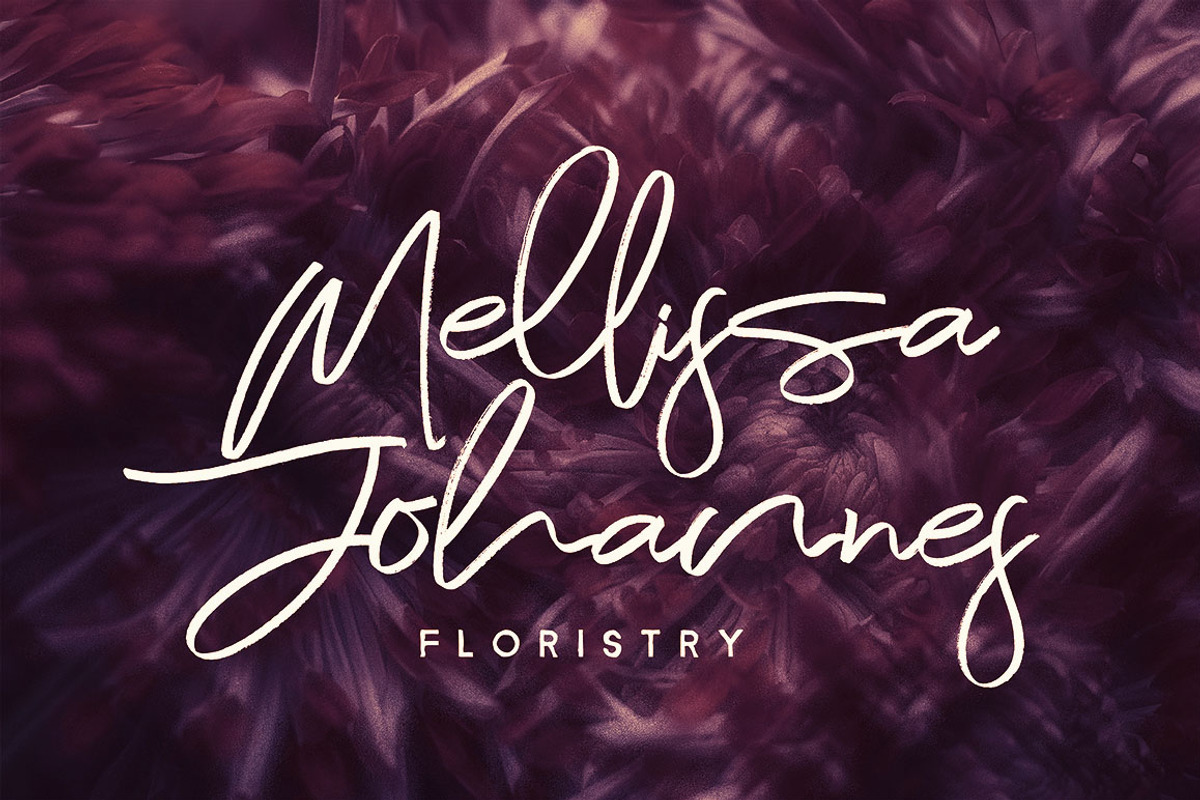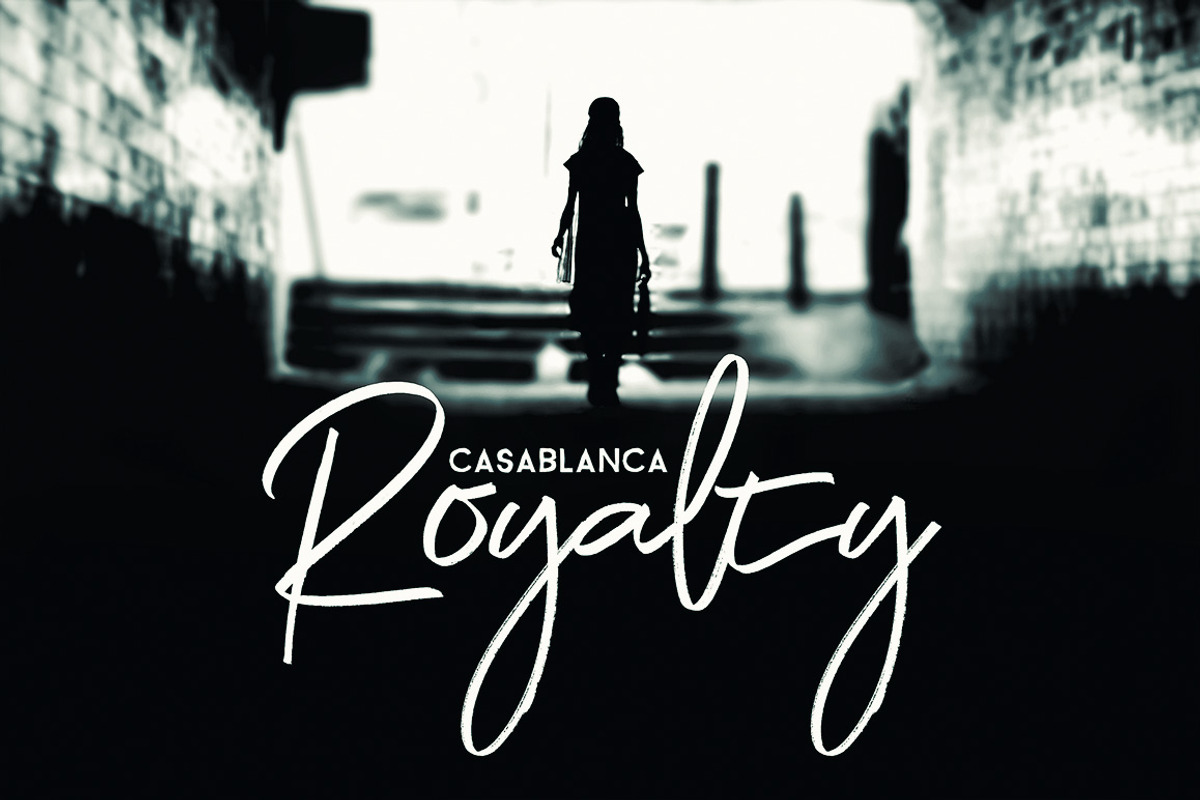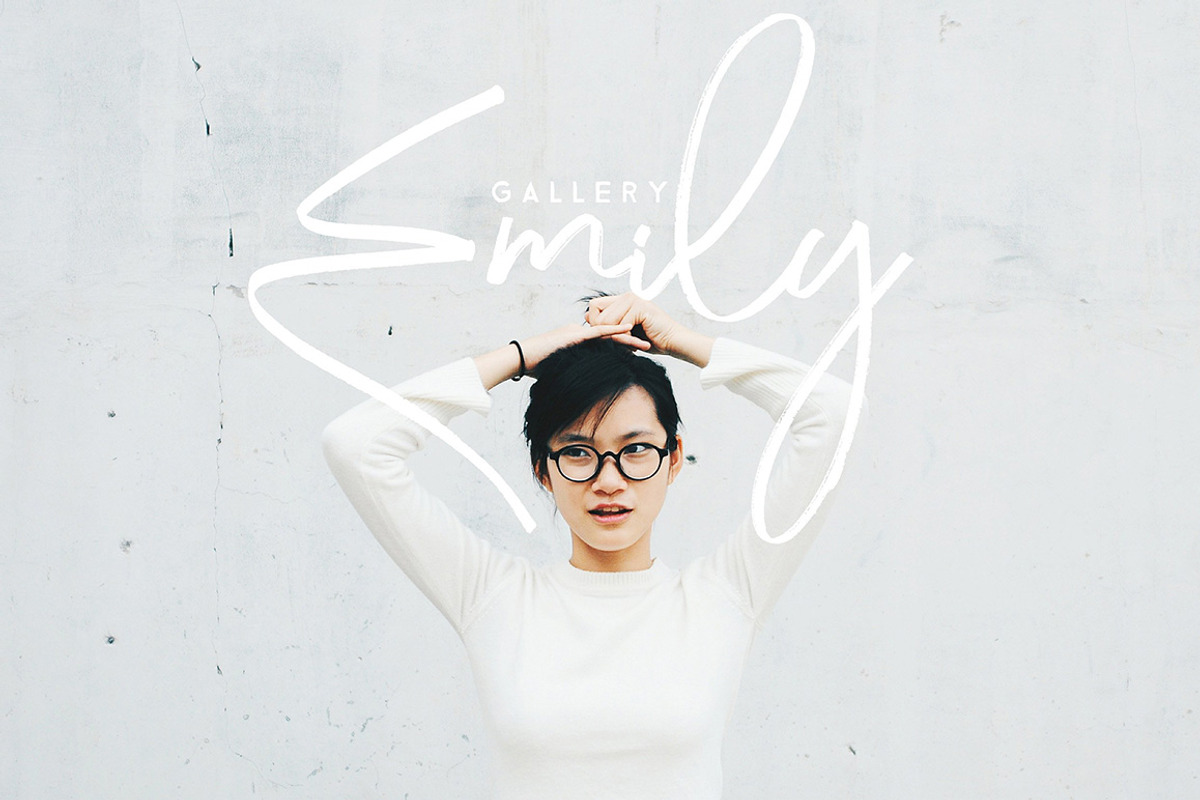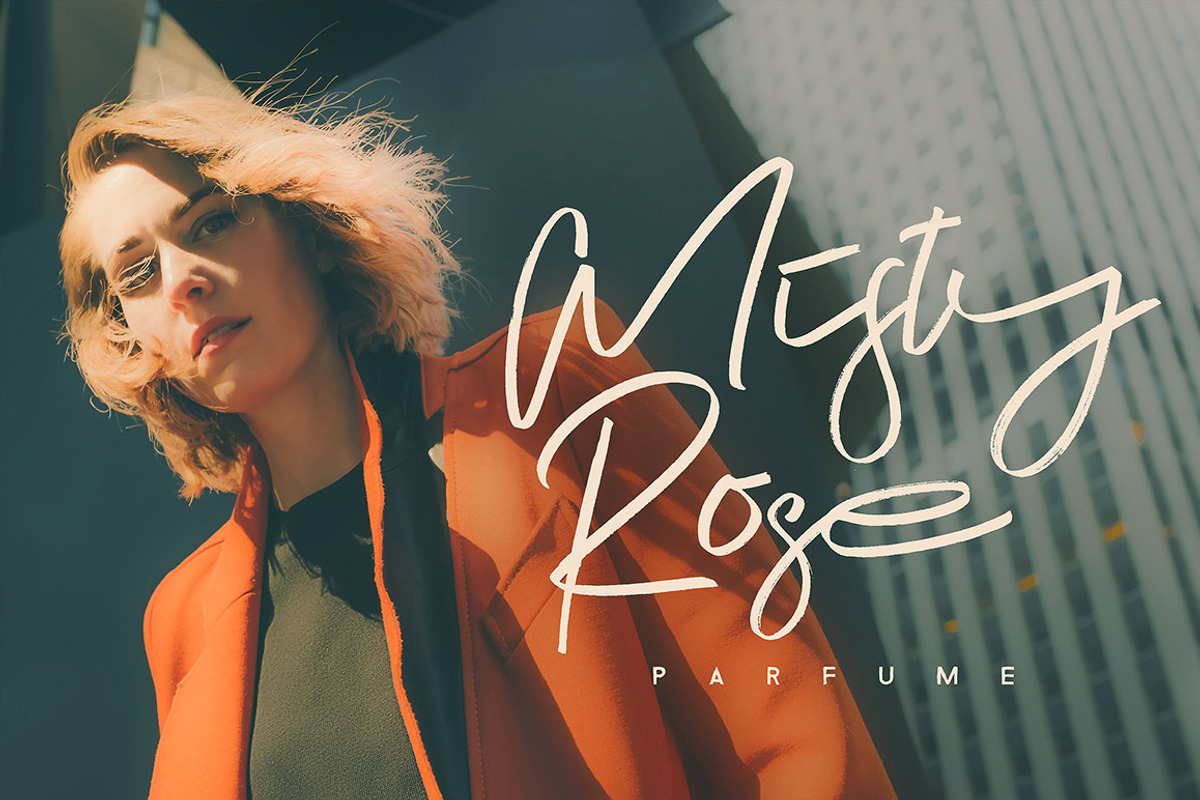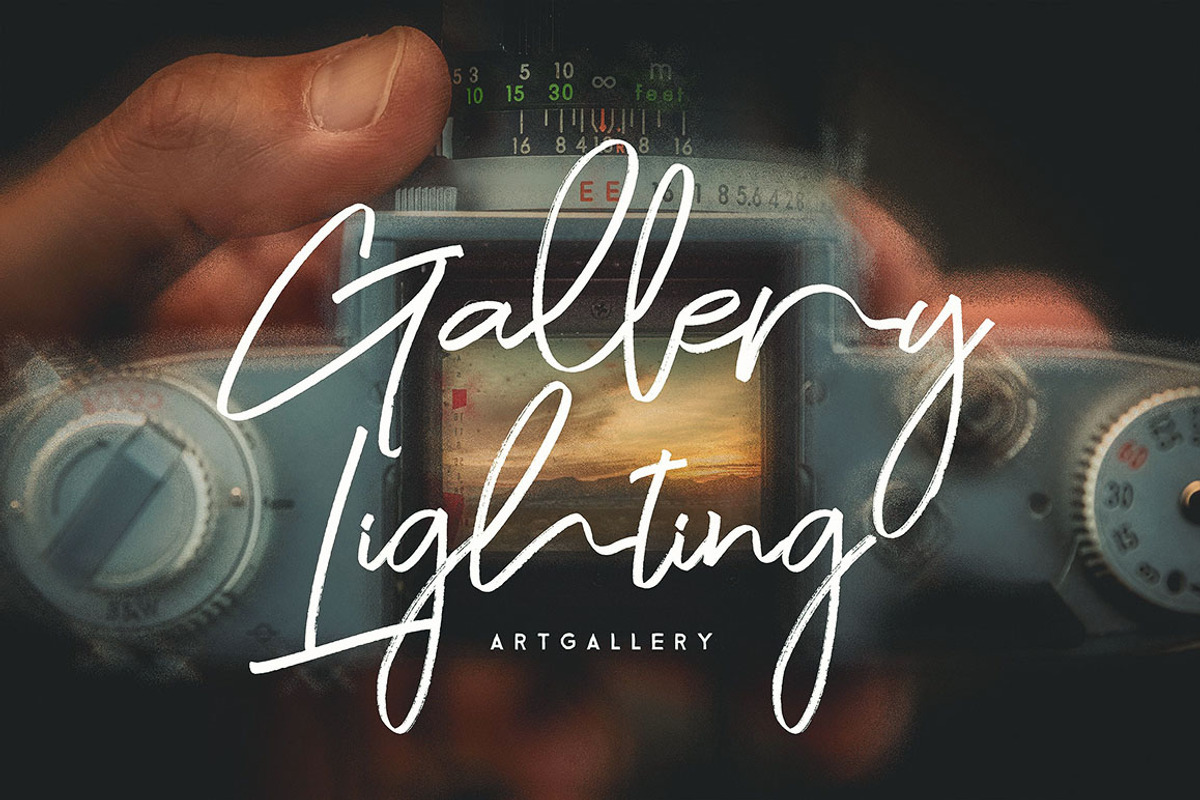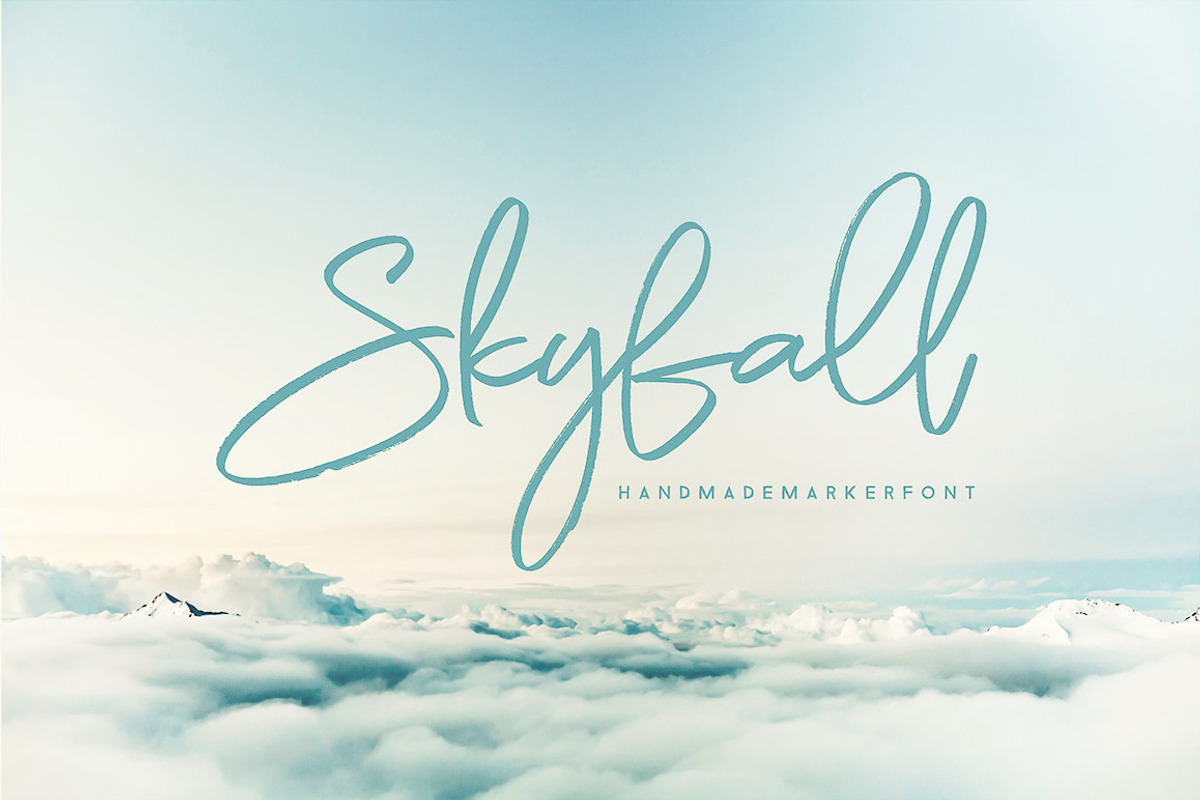
Night Flight Marker Brush Font
Cool handwritten brush style display font with dancing baseline for your new projects. Great for grunge or artistic projects!